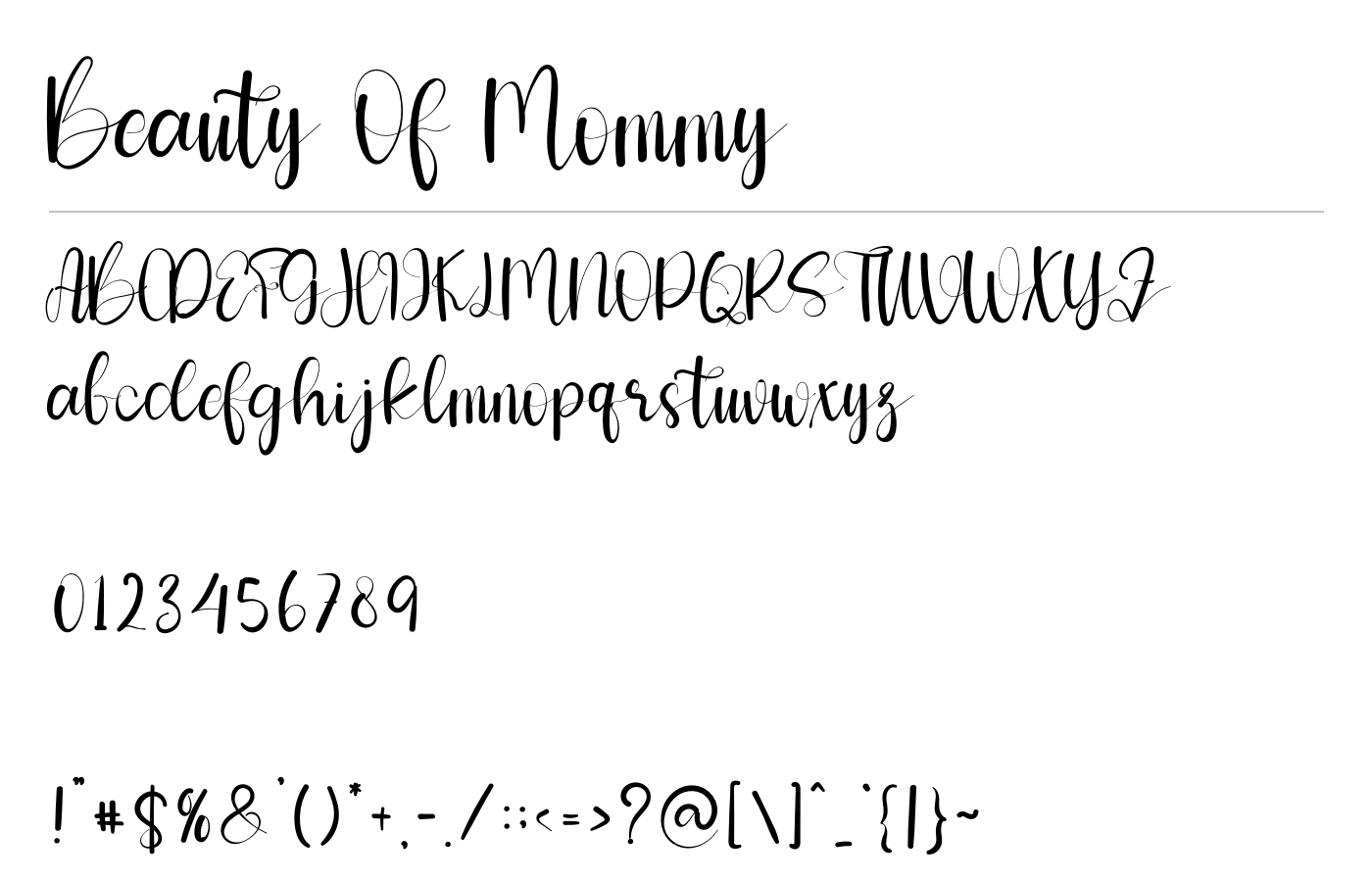
Beauty Of Mommy is an elegant and playful script font with a casual, handwritten feel. Its thin and fluid strokes combined with whimsical loops give it a charming and friendly personality, perfect for adding a personal touch to invitations, greeting cards, and branding related to family or lifestyle. This font works best in larger sizes where its delicate details can shine, making it ideal for logos, headlines, and decorative text.
Beauty Of Mommy Font
About Beauty Of Mommy Font